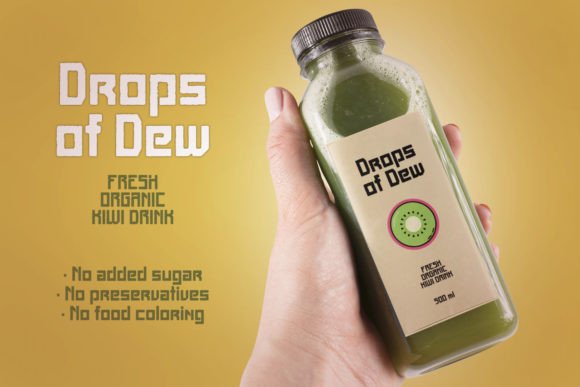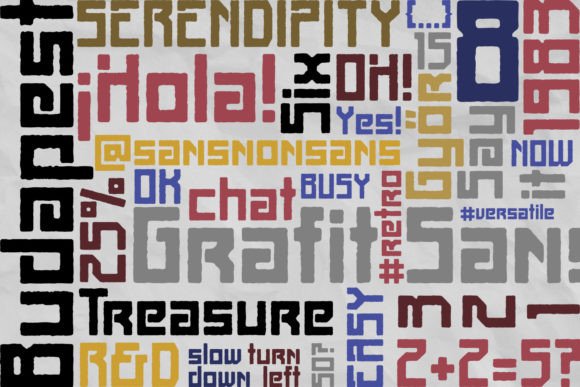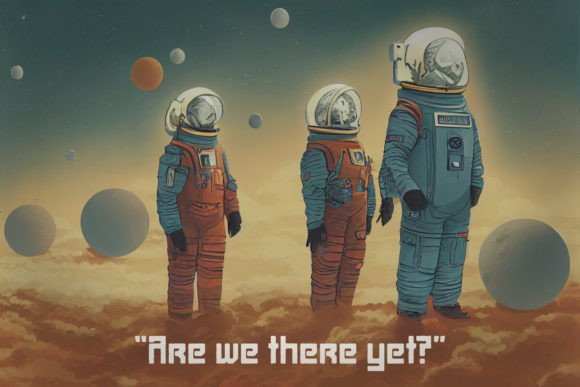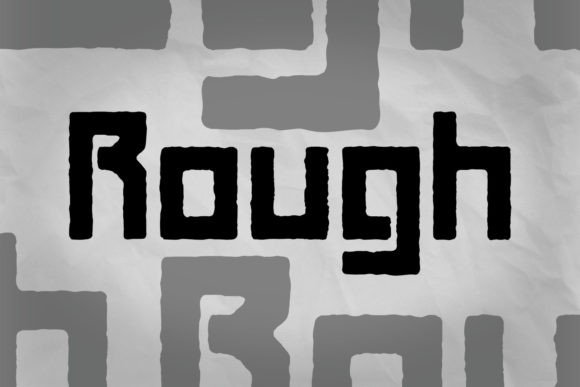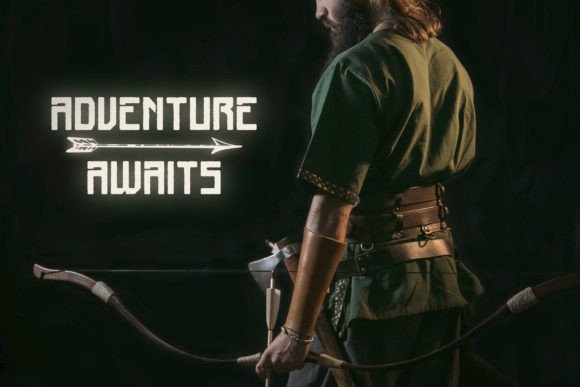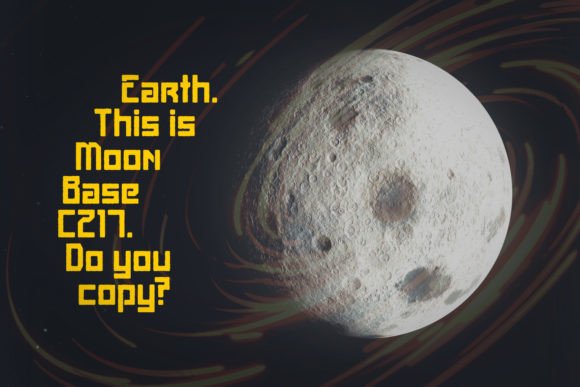
Firmament Rough Font: A Cool Retro-Futuristic Display Font for Creative Projects
In the world of typography, fonts play a vital role in conveying the tone and aesthetic of a brand or creative project. For designers and crafters looking for a unique and eye-catching font, Firmament Rough is an excellent choice. This cool retro-futuristic display font is perfect for a wide range of applications, from logotypes and headlines to posters, music, movies, games, and more.
What is Firmament Rough Font?
Firmament Rough is a display font that boasts a distinctive retro-futuristic style. Its rough texture and imperfect lines give it a raw, edgy look that’s perfect for designers who want to add a touch of industrial chic to their projects. The font’s unique character makes it stand out from more traditional fonts, allowing designers to create bold and eye-catching headlines, titles, and logotypes.
Key Features of Firmament Rough Font
- Retro-Futuristic Style: Firmament Rough has a distinctive retro-futuristic aesthetic that’s perfect for designers who want to evoke a sense of nostalgia or futurism in their projects.
- Rough Texture: The font’s rough texture gives it a raw, edgy look that’s perfect for creating bold and eye-catching headlines and titles.
- Imperfect Lines: The font’s imperfect lines add to its industrial chic aesthetic, making it perfect for designers who want to create a sense of grit and texture in their projects.
- Versatile: Firmament Rough is a versatile font that can be used for a wide range of applications, from logotypes and headlines to posters, music, movies, games, and more.
Use Cases for Firmament Rough Font
Firmament Rough is a versatile font that can be used for a wide range of creative projects. Here are some examples of use cases where Firmament Rough excels:
- Logotypes and Brand Identity: Firmament Rough is perfect for creating bold and eye-catching logotypes and brand identities that stand out from the crowd.
- Headlines and Titles: The font’s unique character makes it perfect for creating bold and eye-catching headlines and titles for posters, magazines, books, and more.
- Apparel Industry: Firmament Rough is a great choice for designers who want to create bold and eye-catching apparel designs that stand out from the crowd.
- Music, Movies, and Games: The font’s retro-futuristic aesthetic makes it perfect for music, movie, and game titles, posters, and promotional materials.
- Websites and Social Media: Firmament Rough can be used to create bold and eye-catching titles, headings, and captions for websites, YouTube, Instagram, and other social media platforms.
Why Choose Firmament Rough Font?
So why choose Firmament Rough font for your creative projects? Here are a few reasons:
- Unique Aesthetic: Firmament Rough has a unique and eye-catching aesthetic that’s perfect for designers who want to stand out from the crowd.
- Versatility: The font is versatile and can be used for a wide range of applications, from logotypes and headlines to posters, music, movies, games, and more.
- Easy to Read: Despite its rough texture and imperfect lines, Firmament Rough is easy to read, making it perfect for use in headlines, titles, and other display text.
In conclusion, Firmament Rough is a cool retro-futuristic display font that’s perfect for designers and crafters looking for a unique and eye-catching font for their creative projects. Its distinctive aesthetic, versatility, and ease of use make it an excellent choice for a wide range of applications. Whether you’re creating logotypes, headlines, posters, music, movies, games, or websites, Firmament Rough is a great choice.